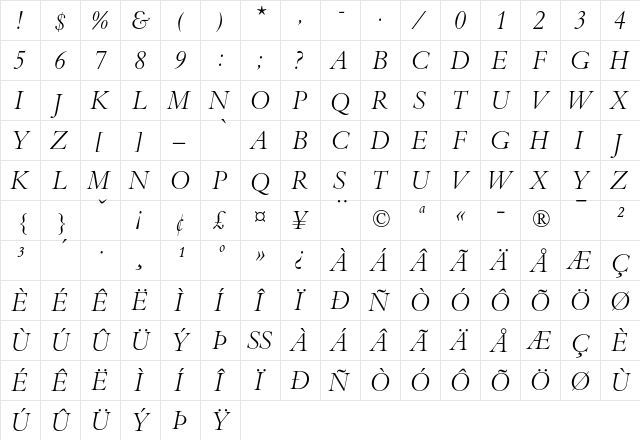
Bembo Titling MT Std Italic
Design Context for Bembo Titling MT Std Typeface
Bembo Titling MT Std takes a measured approach to typography — its balanced proportions and neutral character make it a reliable workhorse for both digital and print work. Its italic angle brings a sense of urgency and motion to the letterforms.